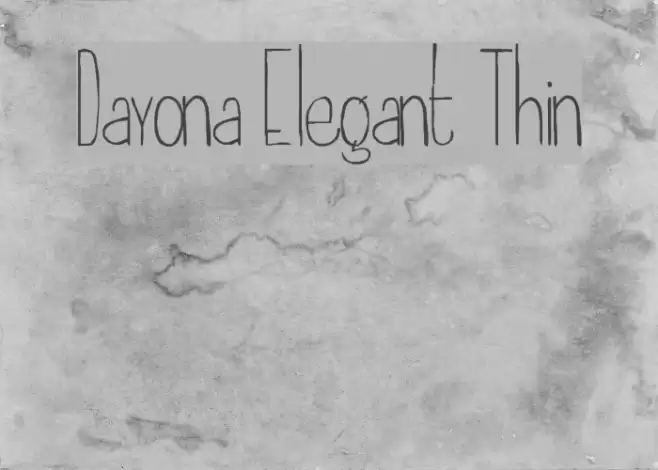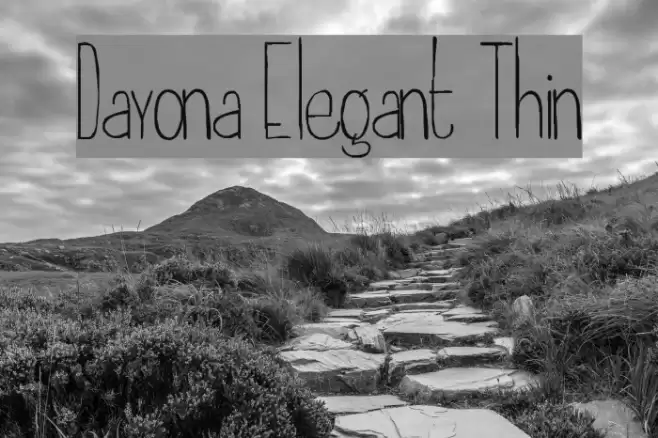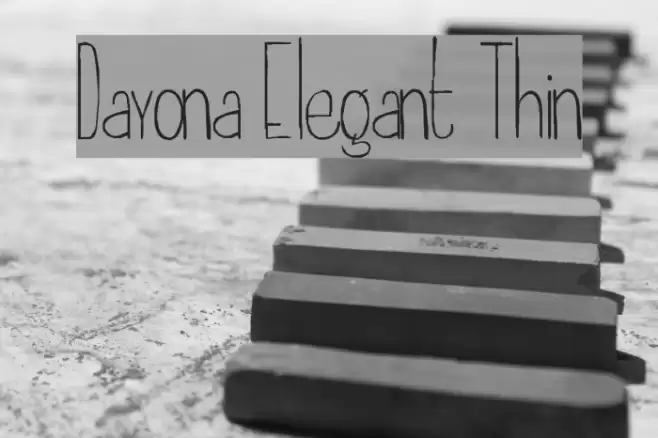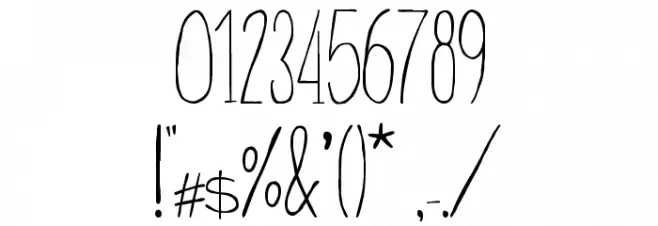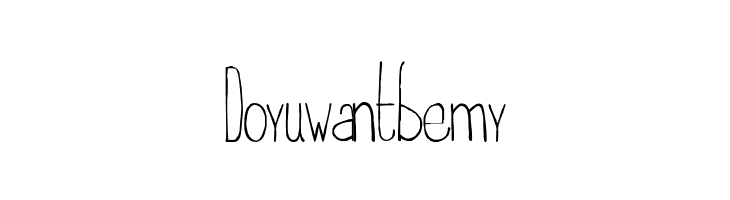
Dayona Elegant Thin Font
Dayona Elegant Thin Description
This font features an elegant and thin design, characterized by its tall, narrow letterforms and delicate strokes. The uppercase letters are slightly taller than the lowercase, maintaining a consistent thinness throughout. The font has a modern and sophisticated appearance, with a touch of minimalism. The numerals and special characters follow the same slender style, ensuring a cohesive look across all text. The overall design is clean and refined, making it suitable for projects that require a touch of elegance and simplicity.
An elegant, thin font with tall, narrow letterforms and a modern, minimalistic style from Script fonts.
- Font: Dayona Elegant Thin
- Weight: Semi-condensed Thin
- Weight: Light
- Overall Style: Elegant, Minimalistic